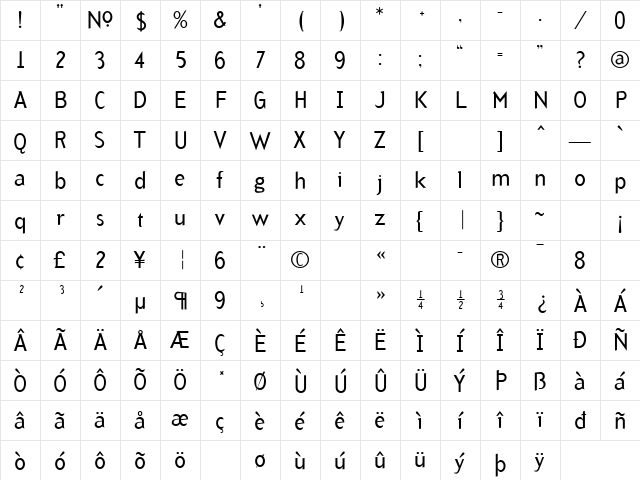
ArbitraryRegular Medium
Foundry: Emigre Graphics, designed by Barry Deck
Design Context for ArbitraryRegular
ArbitraryRegular is a composed and adaptable typeface that performs quietly and consistently across a wide range of design contexts.
Who designed the ArbitraryRegular Medium font?